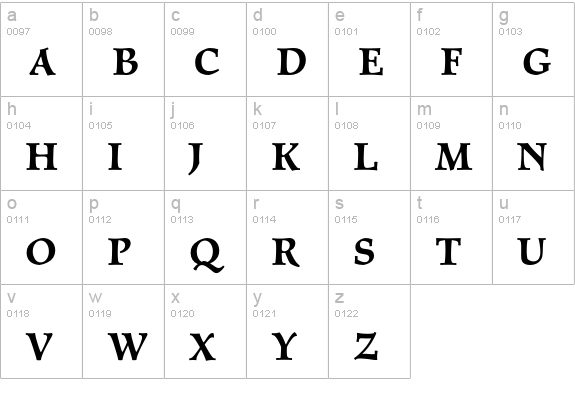
Prague Std Font Details
Prague Std font is a versatile and elegant typeface that exudes a sense of sophistication and style. With its clean lines and classic design, this font is perfect for a wide range of projects, from branding to editorial design. Its timeless appeal makes it a popular choice for designers looking to add a touch of class to their work. What's even better is that Prague Std font is completely free to download at FontsMarket.com. Now you can access this high-quality font without having to worry about any costs. Whether you're working on a personal project or a professional assignment, Prague Std font will elevate your design with its refined aesthetic and impeccable craftsmanship. Download it today and see the difference it can make in your creations.